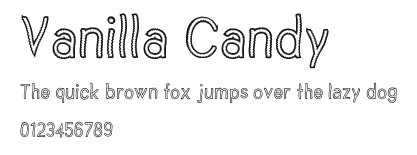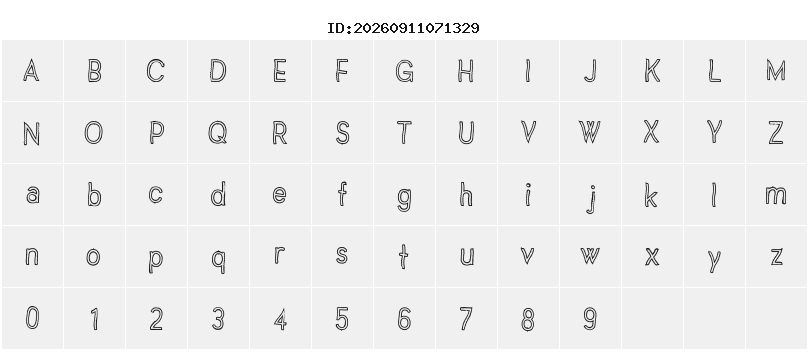
• Font Name: Vanilla Candy
• Full Font Name: Vanilla Candy
• Designer: Woodcutter Manero
About Vanilla Candy.ttf
Vanilla Candy.ttf is a modern, elegant sans-serif font designed for ultimate readability and visual harmony. Perfect for branding, headlines, web design, and print materials.